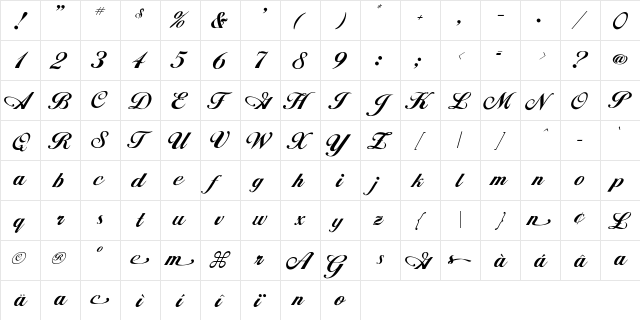
Silkee Regular
Design Context for Silkee Typeface
Silkee is a composed and adaptable typeface that performs quietly and consistently across a wide range of design contexts.